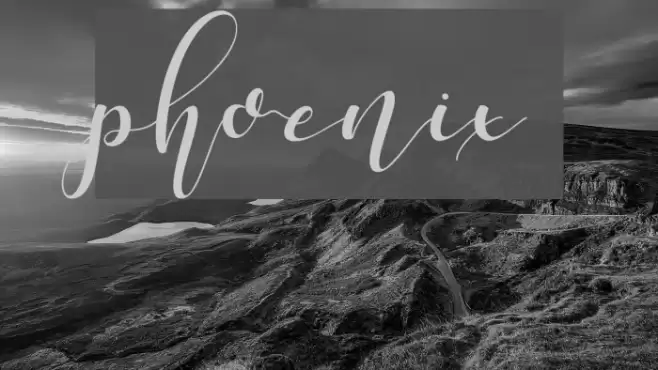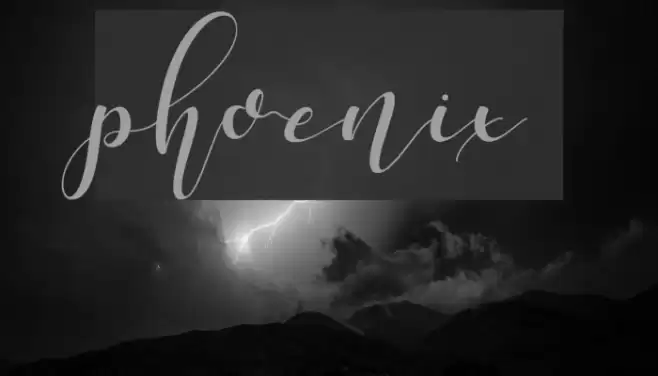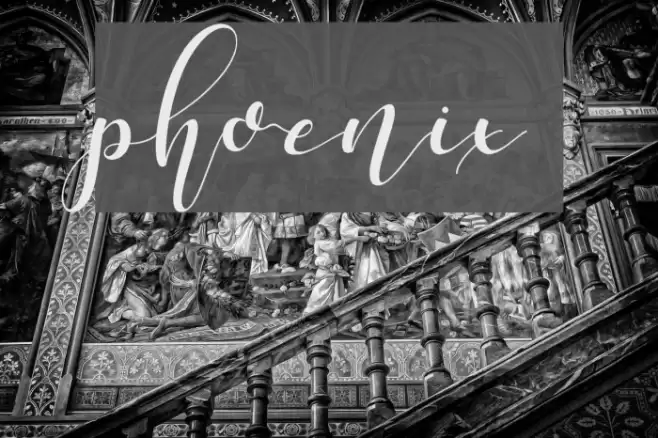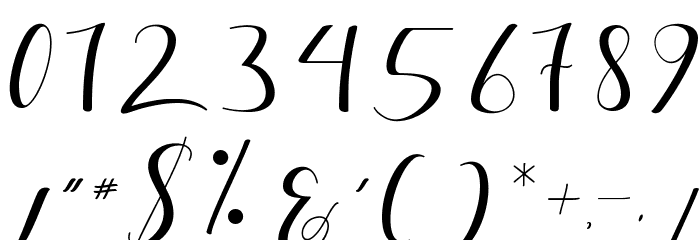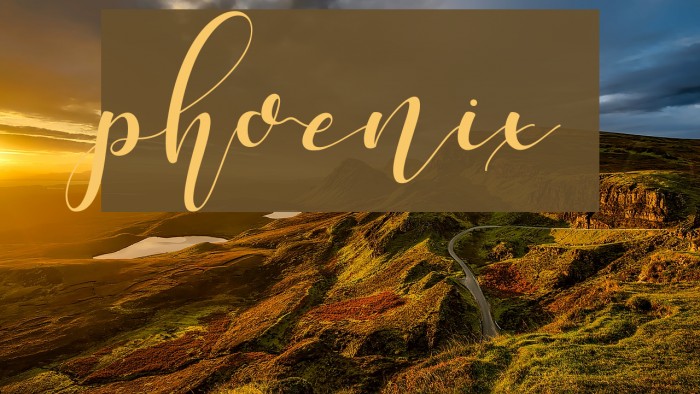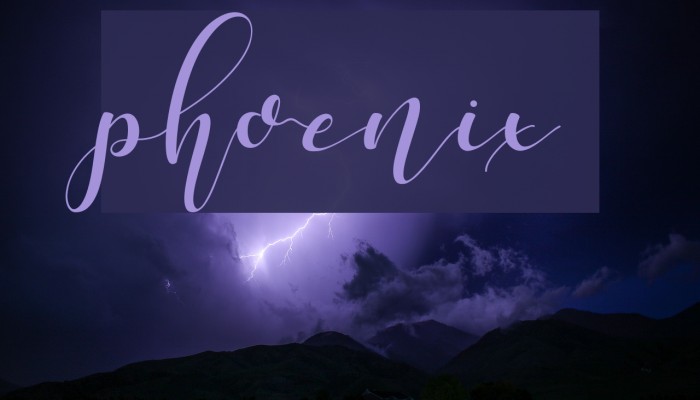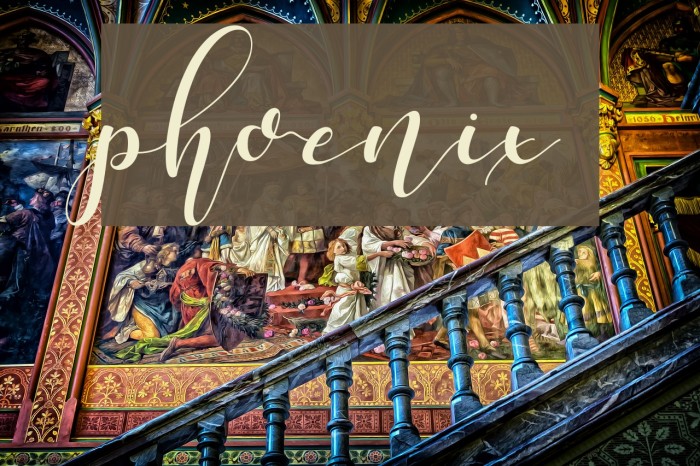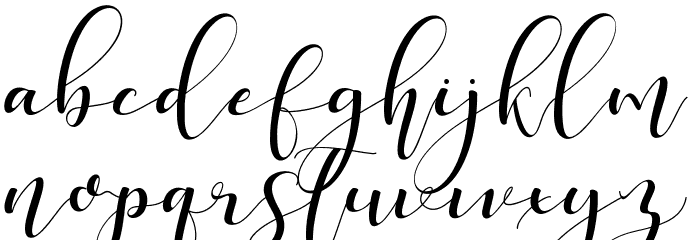
phoenix Font
phoenix Description
This elegant script font features fluid, flowing strokes that mimic the natural movement of handwriting. The uppercase letters are characterized by their sweeping curves and intricate loops, while the lowercase letters maintain a consistent slant and graceful form. The numerals are stylishly integrated, matching the overall aesthetic with their elongated lines and subtle flourishes. Special characters are thoughtfully designed to complement the alphabet, adding a touch of sophistication. This font exudes a sense of refinement and artistry, making it ideal for projects that require a personal, yet polished touch.
A graceful script font with flowing, handwritten strokes and elegant curves.
- Proposed Projects: Wedding invitations, greeting cards, branding, and elegant packaging design.
- Category: Script
- Overall Style: Elegant, Artistic
- Use Case: Logos, Invitations, Decorative text